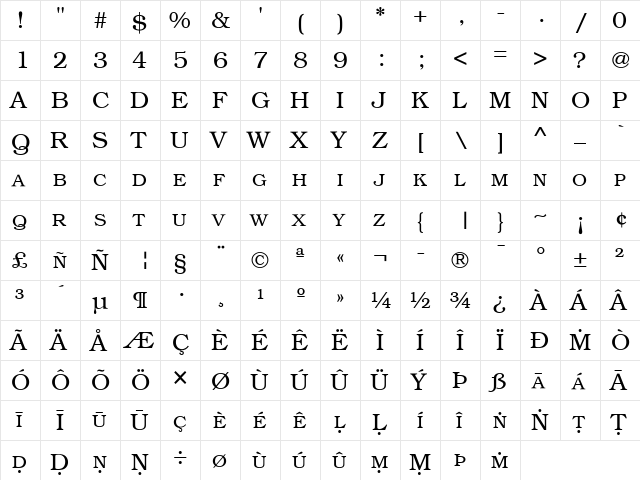
Pali Bookman SmCps Regular
| Foundry | by URW |
Design Context for Pali Bookman SmCps Typeface
Pali Bookman SmCps takes a measured approach to typography — its balanced proportions and neutral character make it a reliable workhorse for both digital and print work.